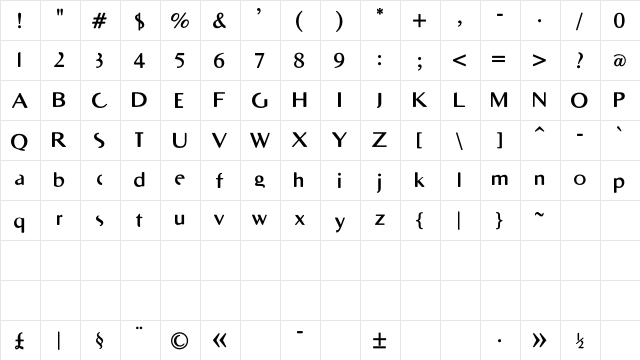
RighOn Bold
Design Context for RighOn Typeface
RighOn offers clean, dependable letterforms without strong stylistic allegiance, making it a practical choice for designers who need flexibility. The heavy weight commands attention and anchors typographic hierarchies.